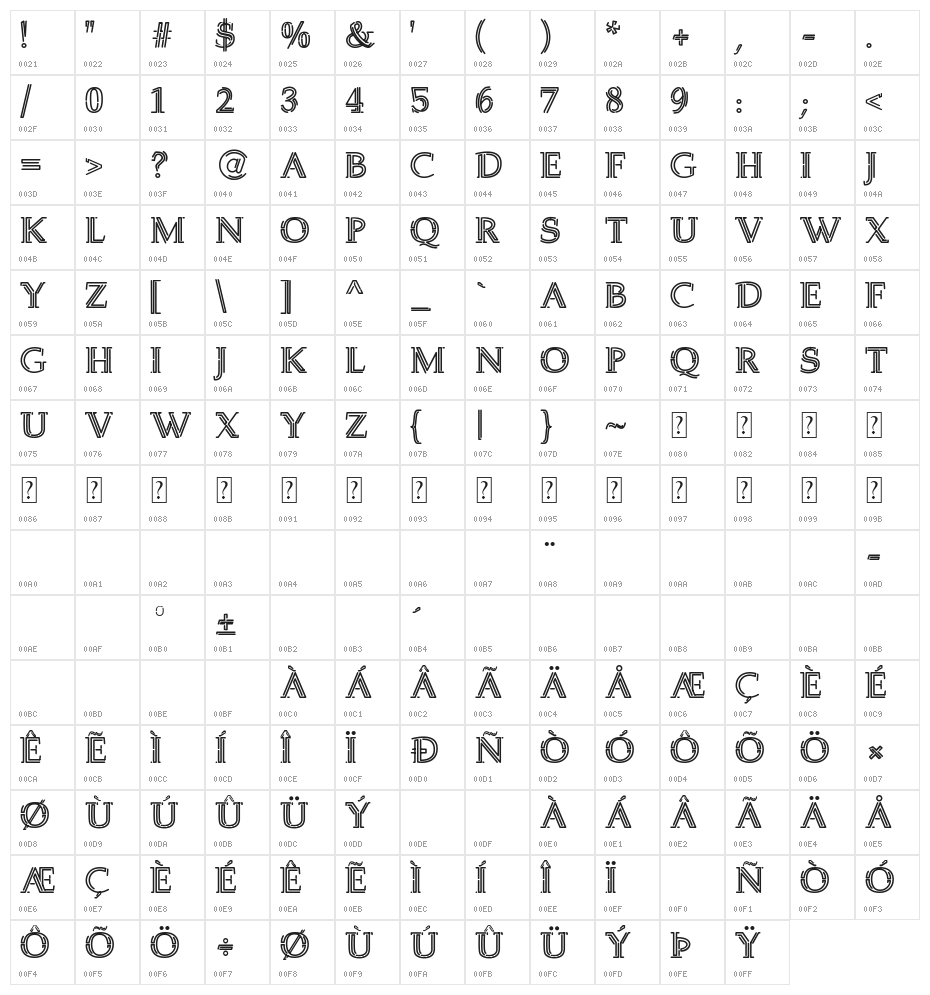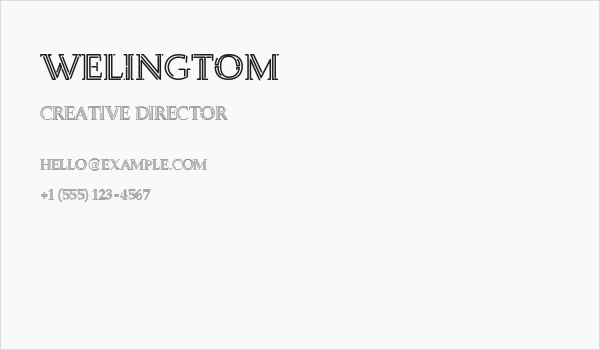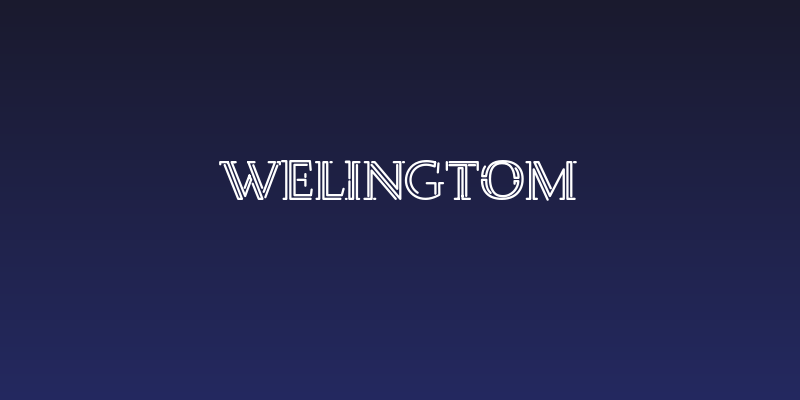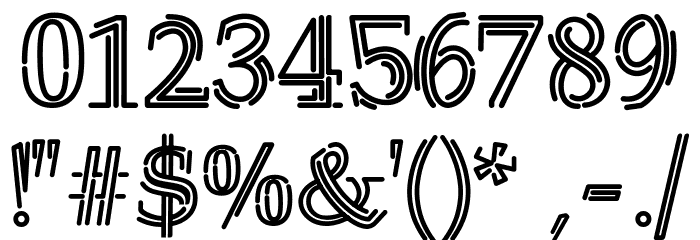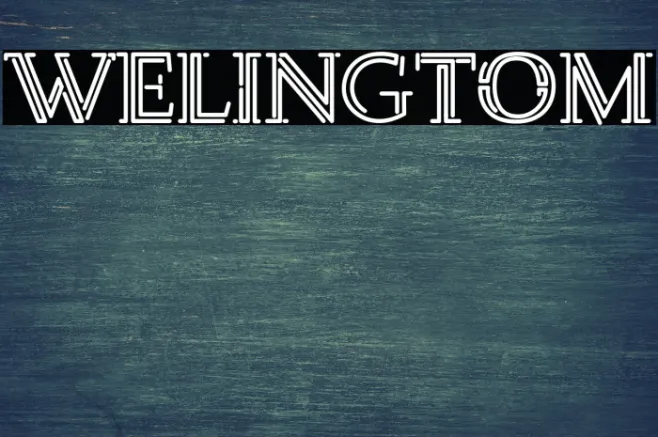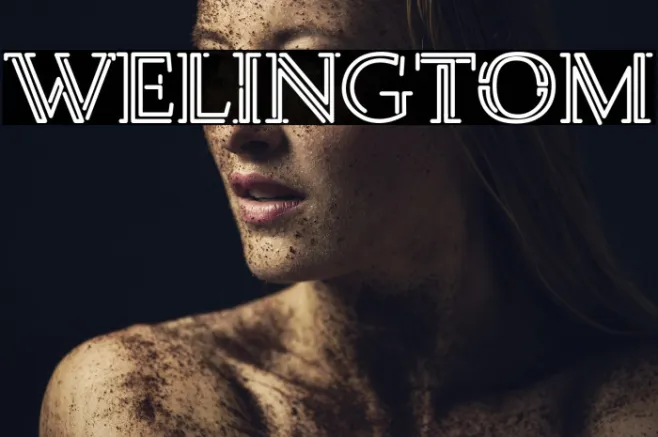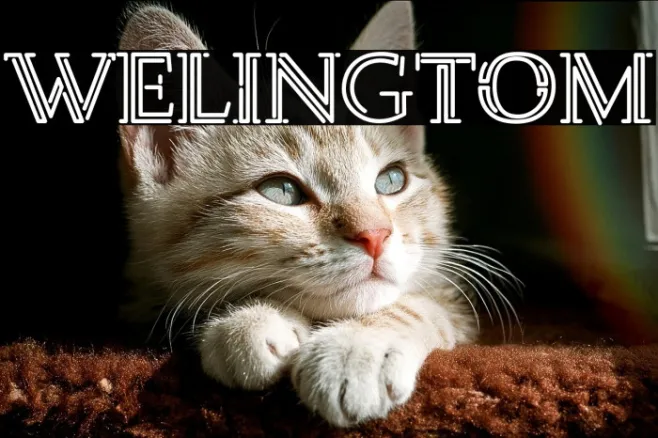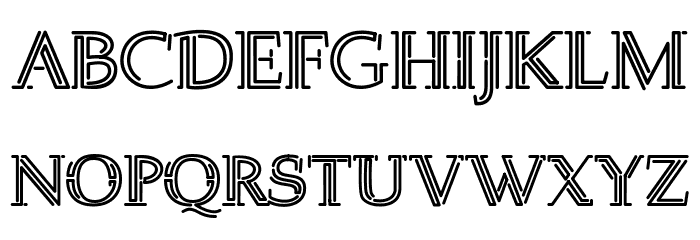
Welingtom Font
Welingtom Description
This font features a bold, geometric style with a distinct double-line design that gives it a unique and modern appearance. The uppercase letters are crafted with precision, showcasing a blend of sharp angles and smooth curves. The numbers and special characters maintain the same double-line aesthetic, ensuring consistency across all glyphs. This font's structure is both eye-catching and legible, making it suitable for various creative applications. The spacing between characters is balanced, allowing for clear readability while maintaining its decorative appeal.
| Proposed Projects | Ideal for branding, poster design, and headlines where a modern and striking look is desired. |